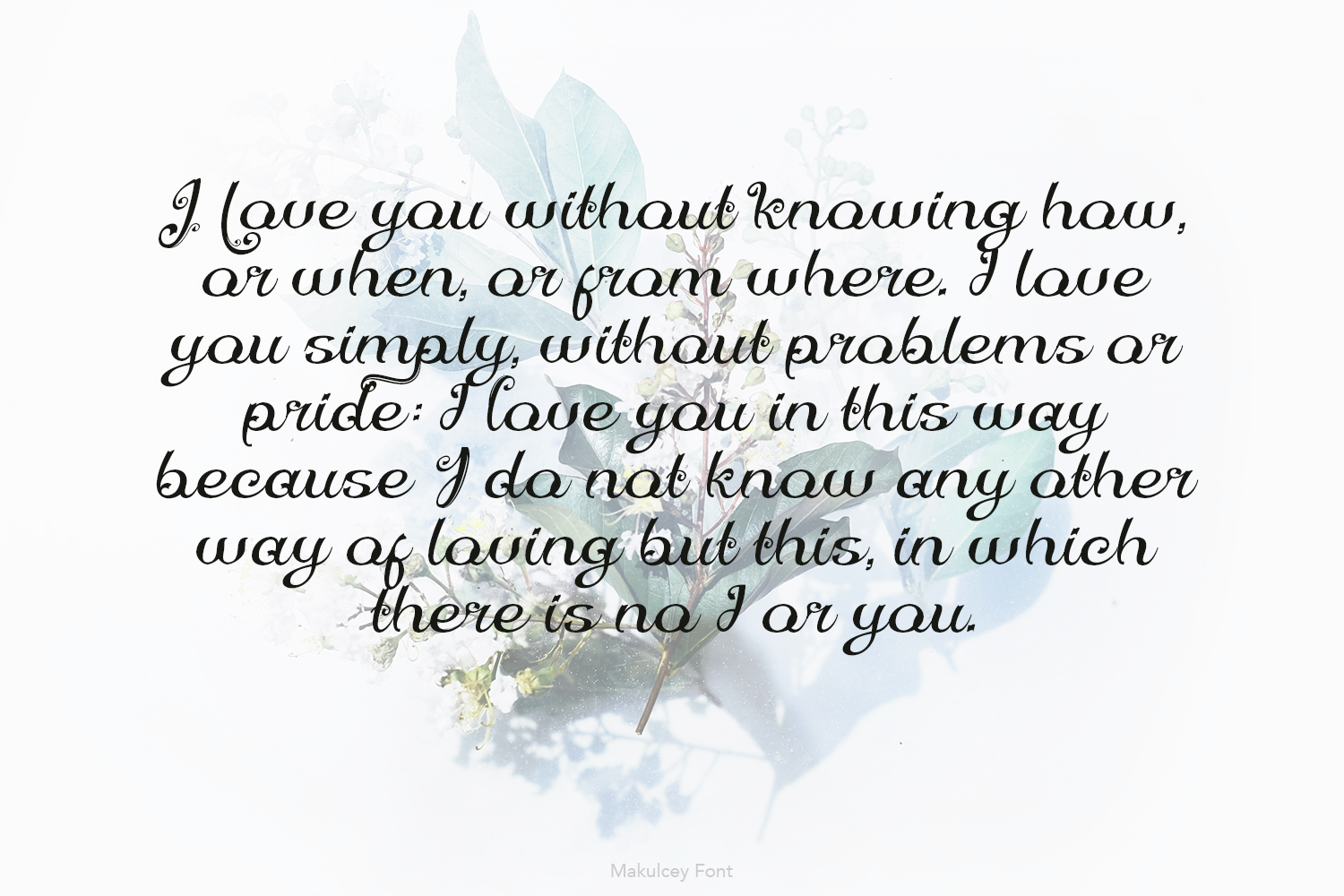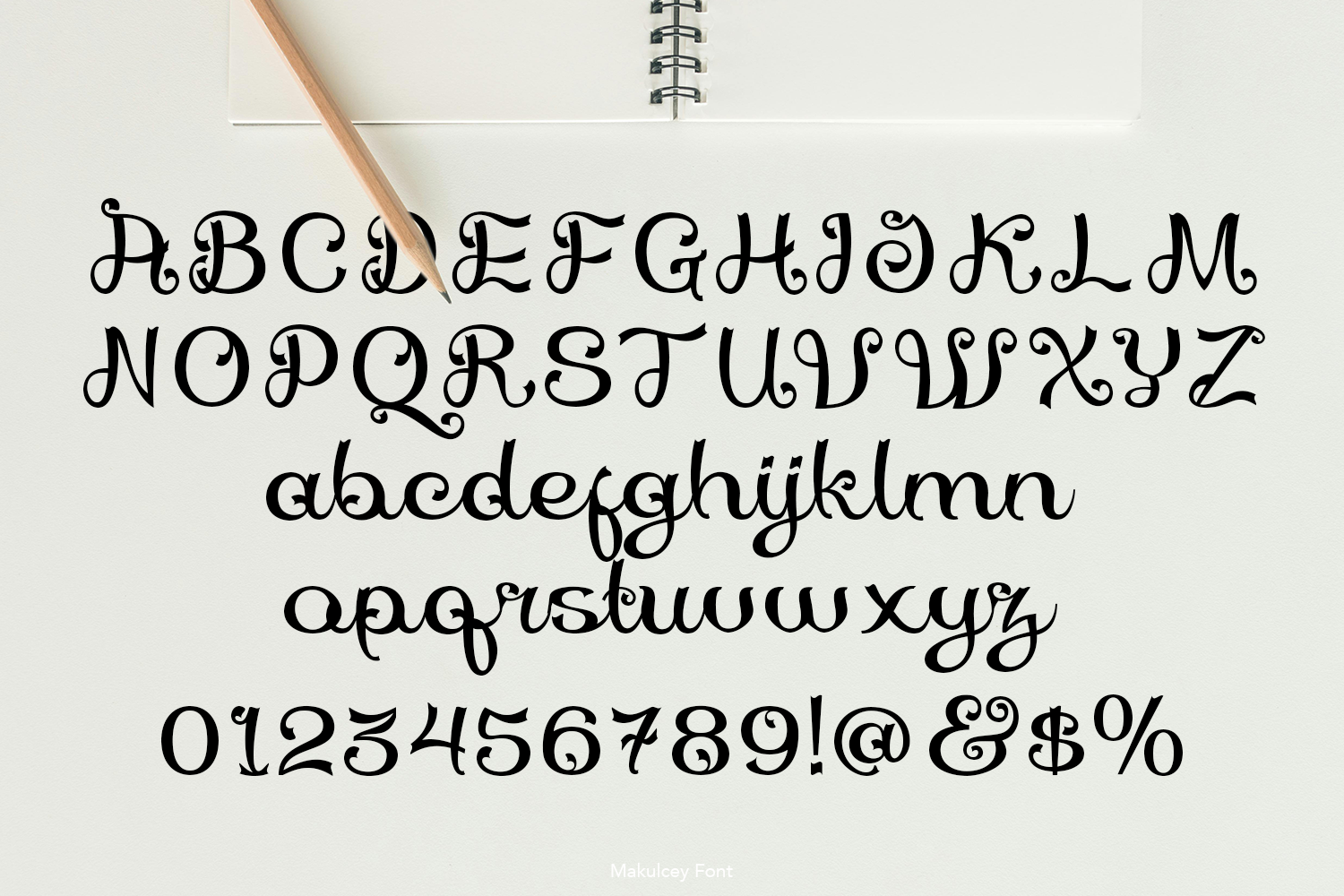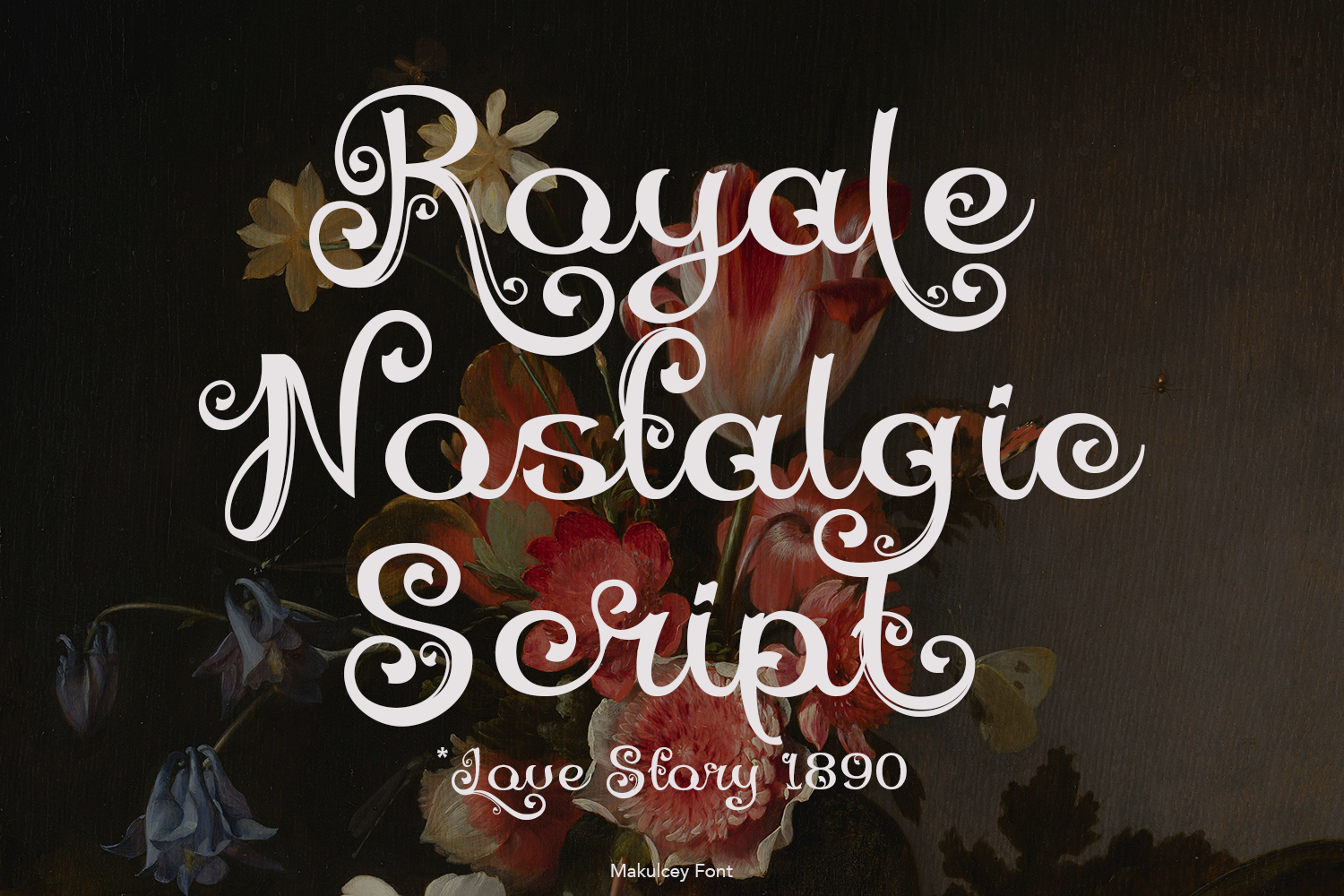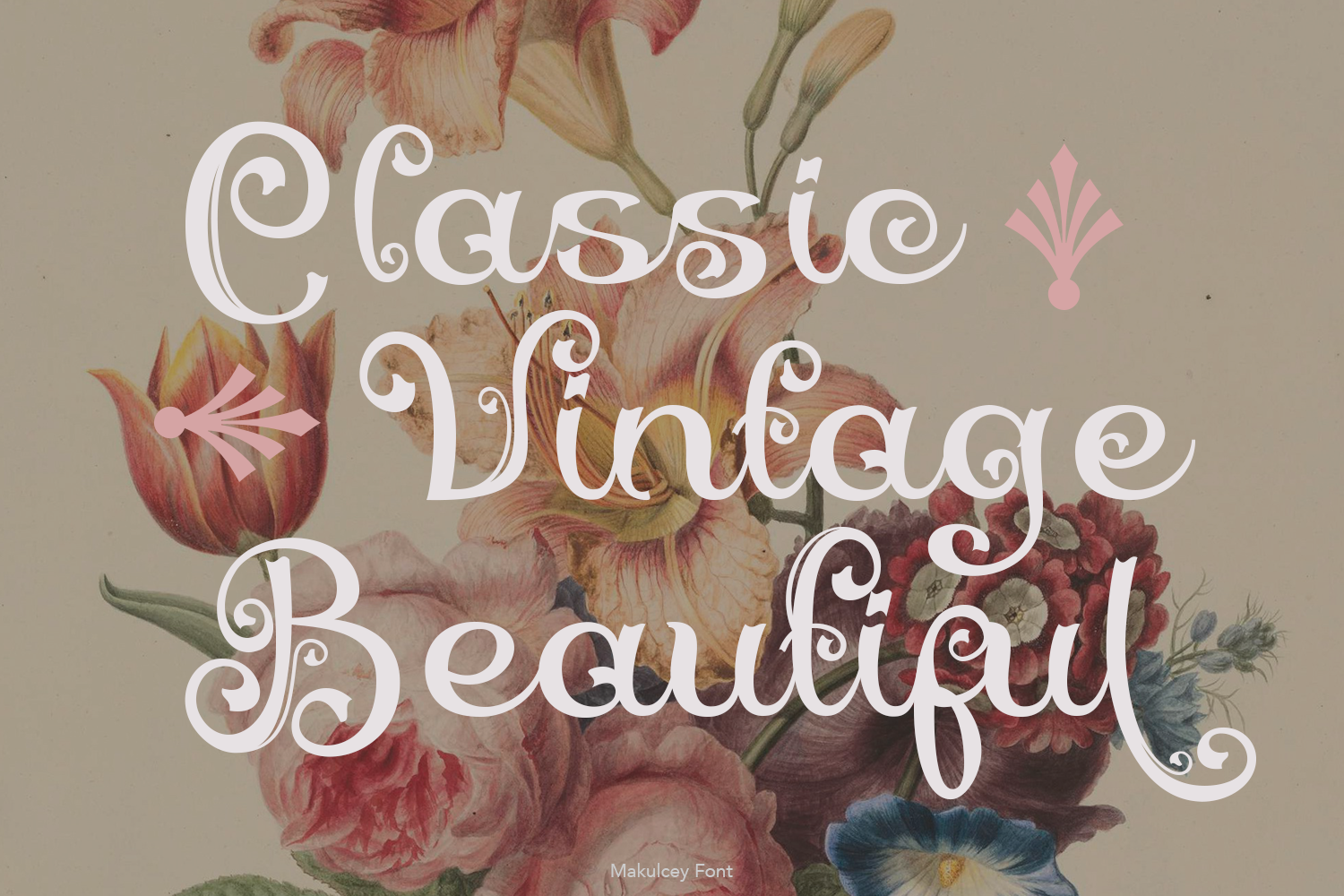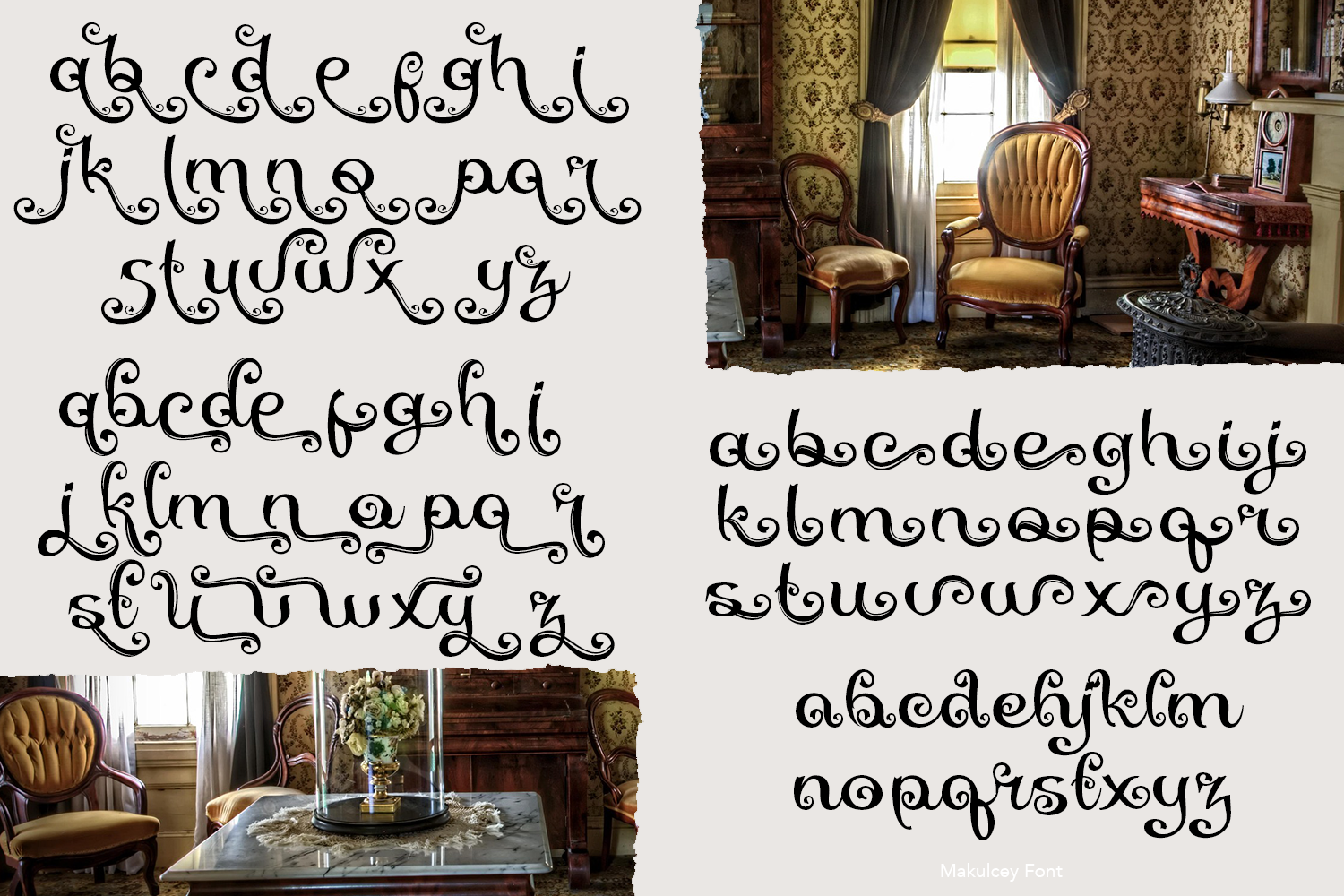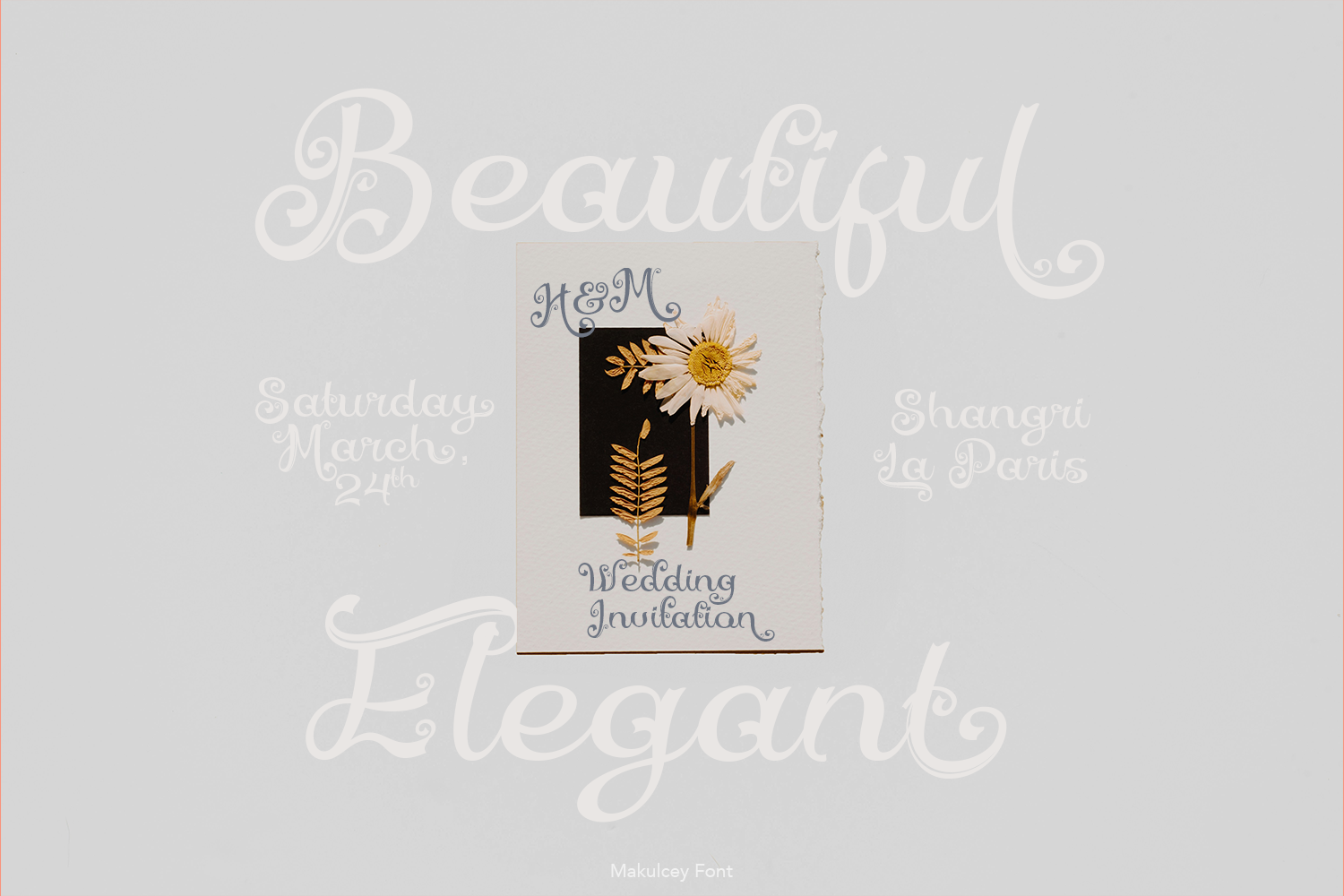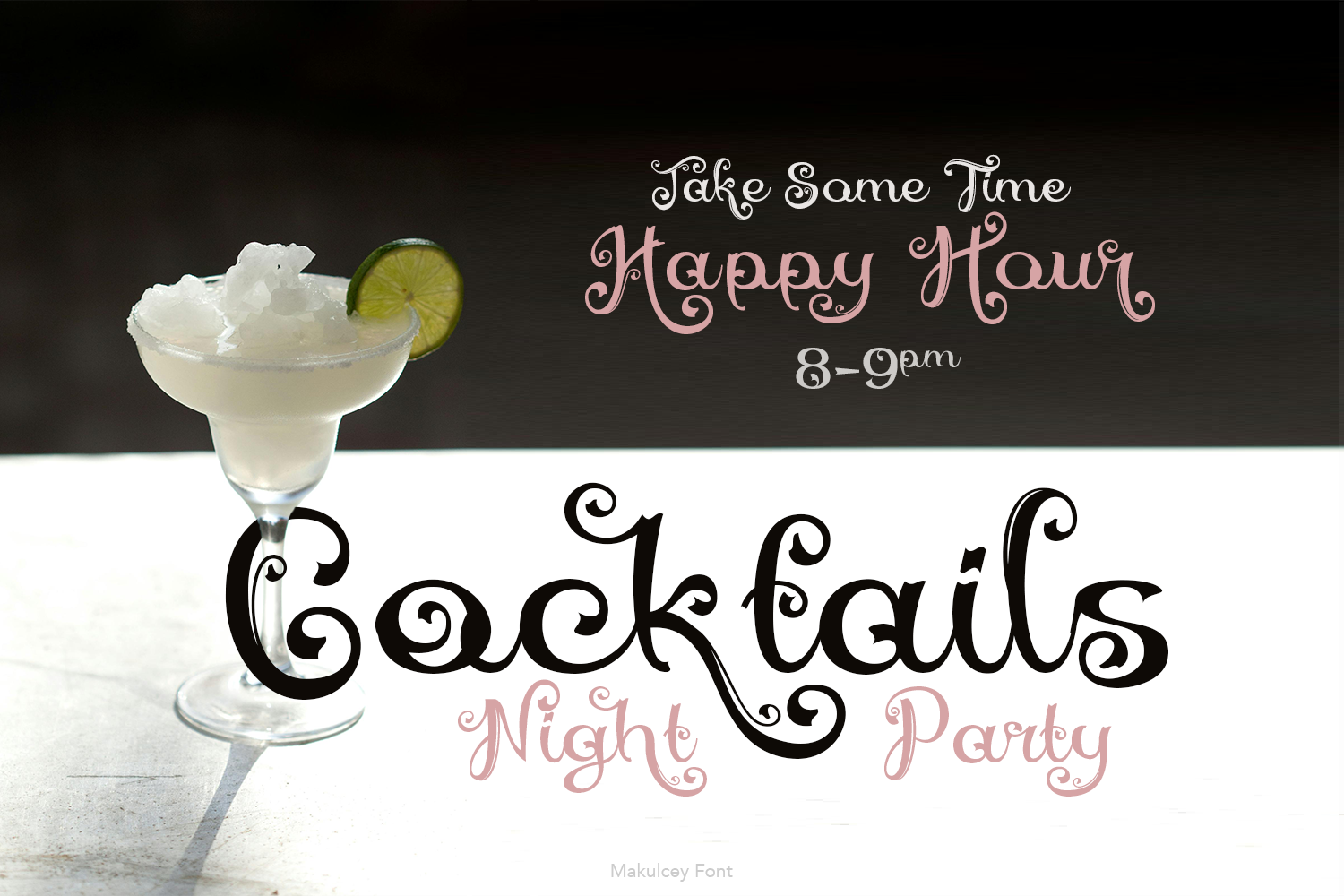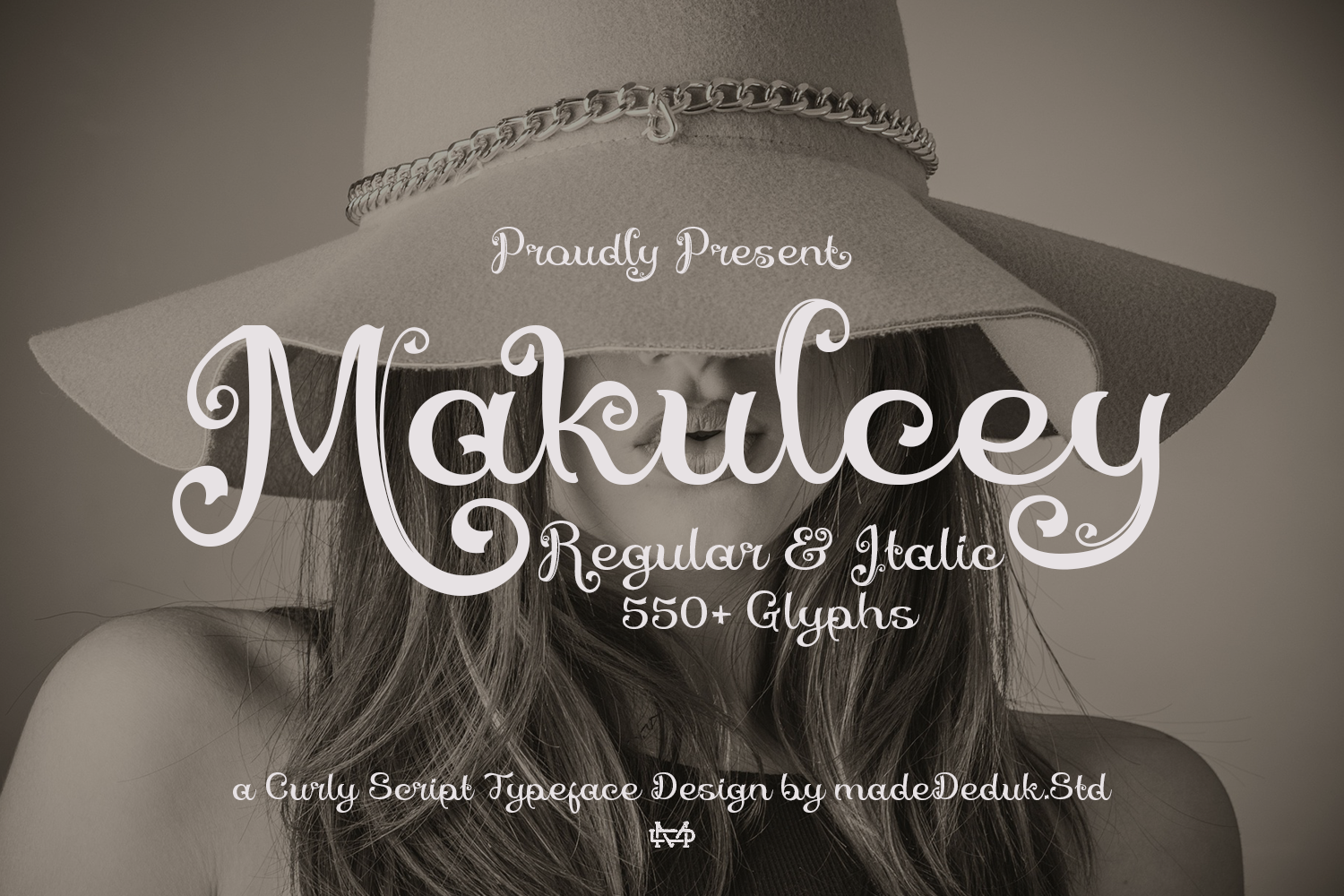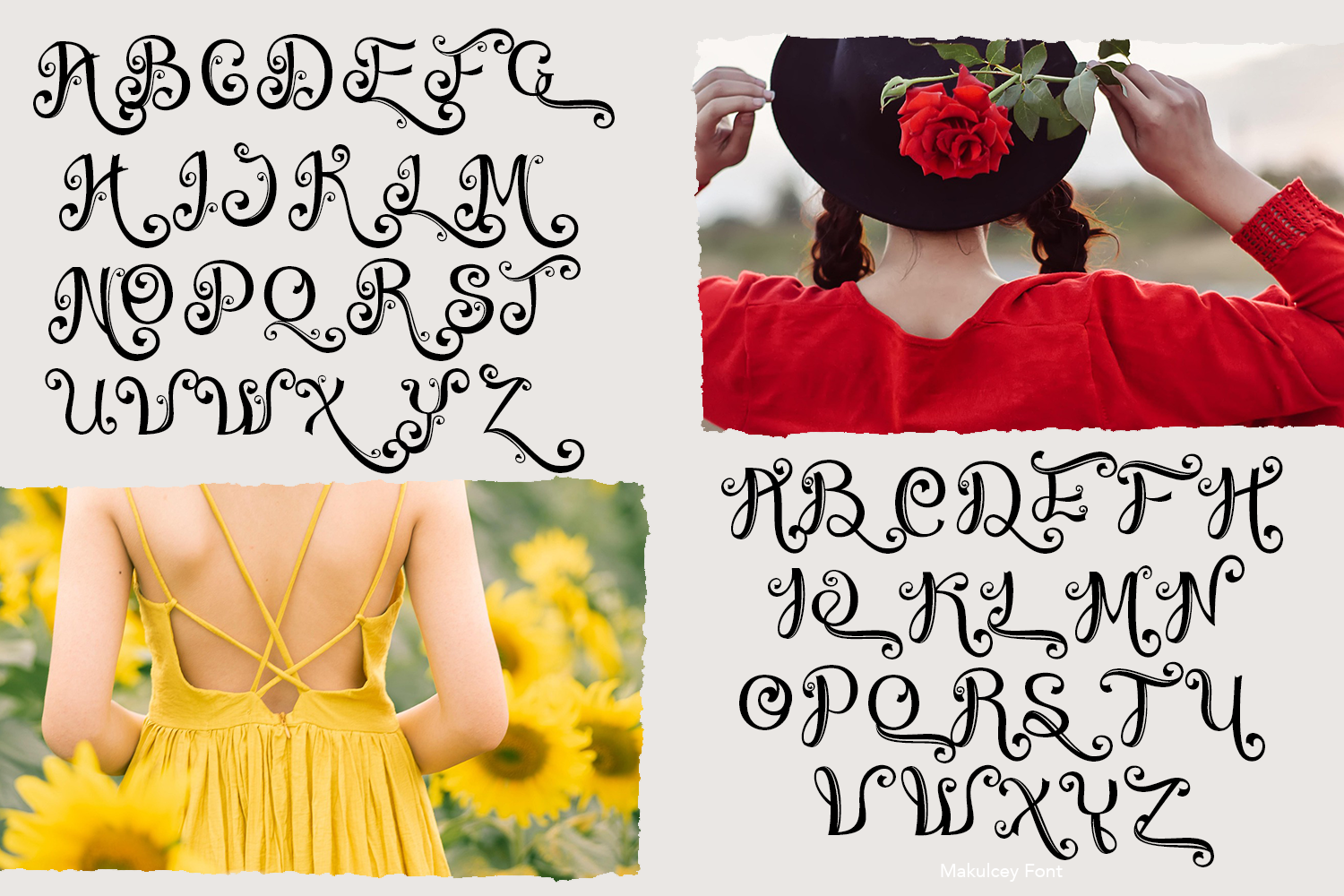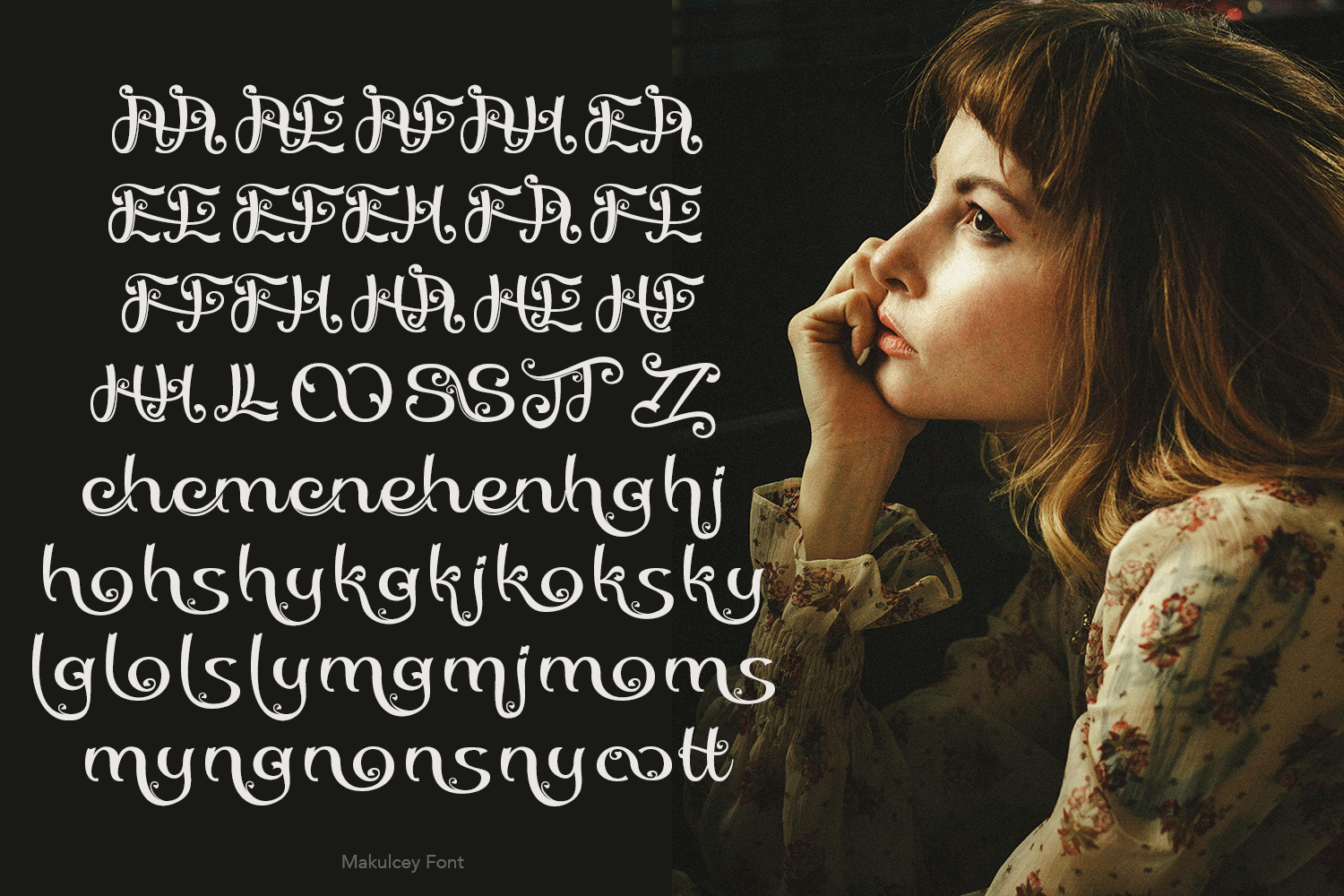
Makulcey Script Font
Makulcey is a classic script font comes with curly style with much alternative and ligature. This font is very perfect for many display purposes in your product design if you want to a modern vintage style look. Such as book covers, product labels, logos badges, drink bottles, tattoo shop, coffee shops, and many more.
Feature
- Number & Symbol
- International Glyphs
- Alternative
- Ligature